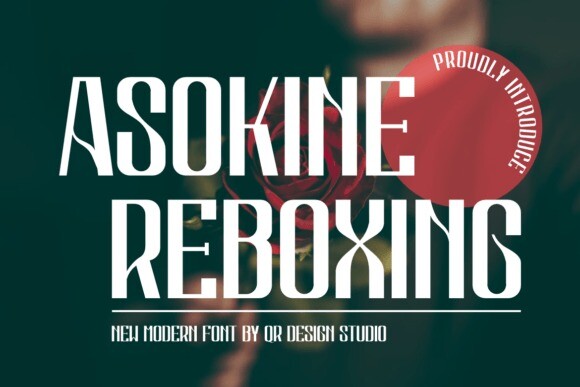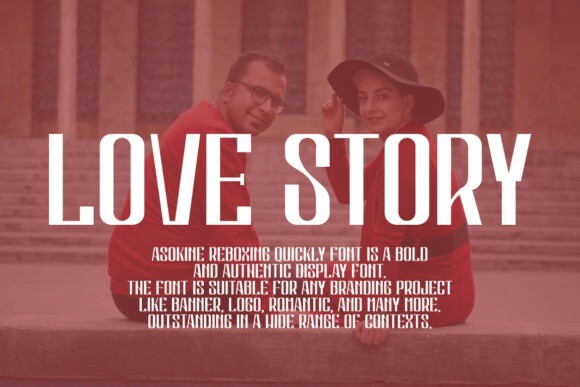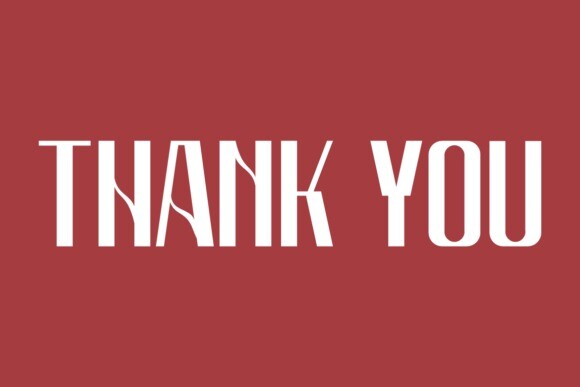
Asokine Reboxing Font
Asokine Reboxing Font is a bold and authentic display font.
The font is suitable for any branding project like logo, fashion, and many more.
Outstanding in a wide range of contexts.